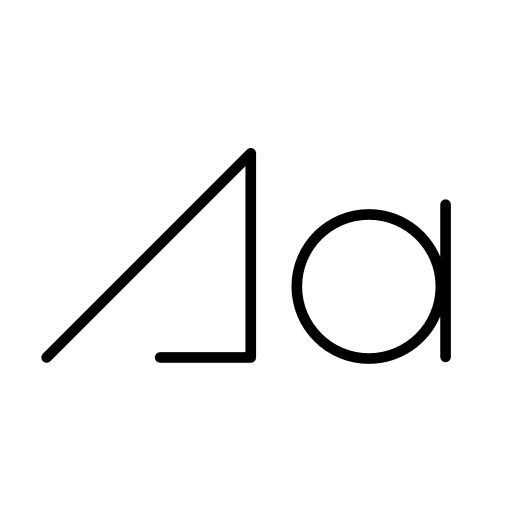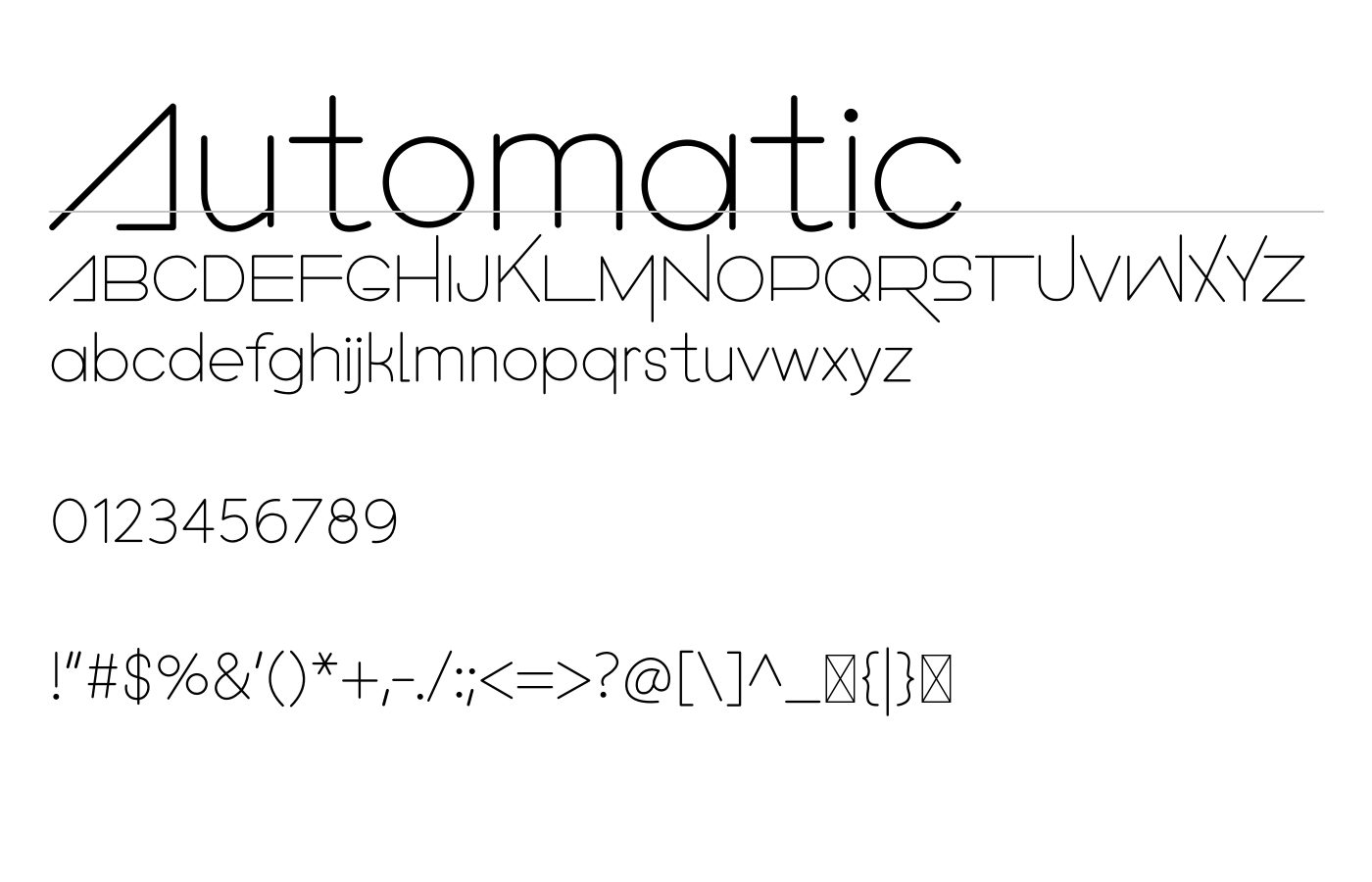
Automatic Font is a sleek, modern sans-serif with a delicate, thin weight and geometric letterforms that feature clean lines and subtle rounded edges. Its high x-height and unified stroke width give it an elegant, contemporary feel, making it perfect for tech-forward branding, minimalist editorial design, and stylish headlines where clarity and sophistication are key. This font’s refined simplicity lends a futuristic yet approachable personality ideal for businesses seeking a polished and modern aesthetic.
Automatic Font
About Automatic Font
| Font family | Automatic Font |
| Designer | erik studio |